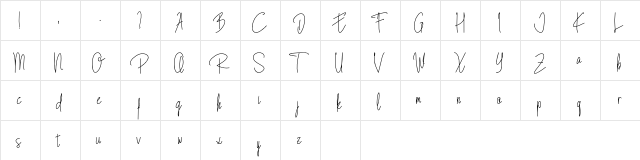
Blista Rade Demo Regular
| Designer | Eko Nurcahyo |
Design Context for Blista Rade Demo Typeface
Blista Rade Demo is a composed and adaptable typeface that performs quietly and consistently across a wide range of design contexts.